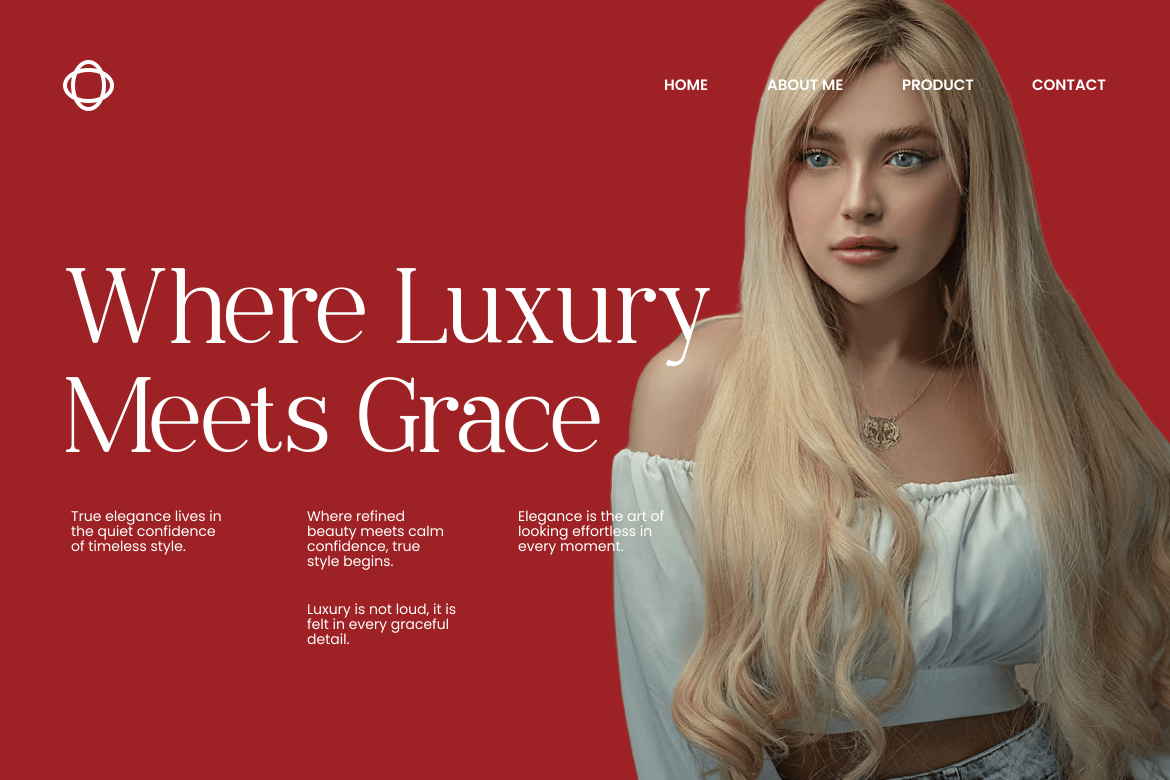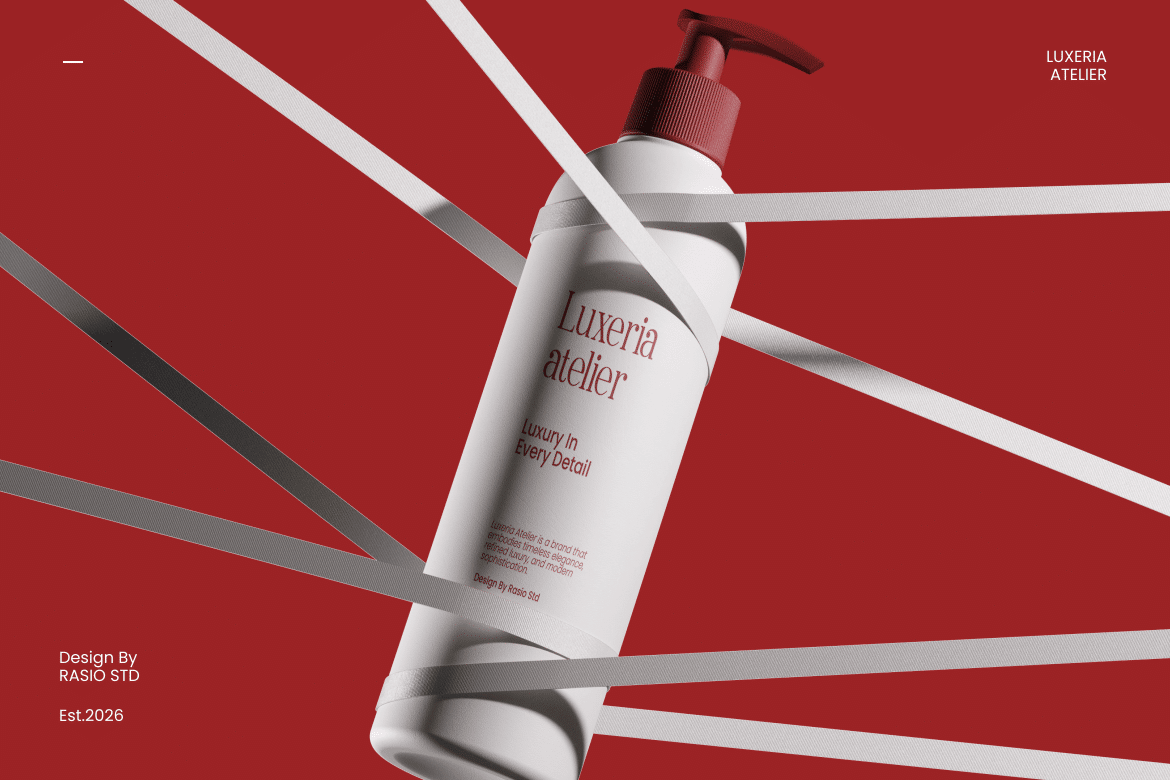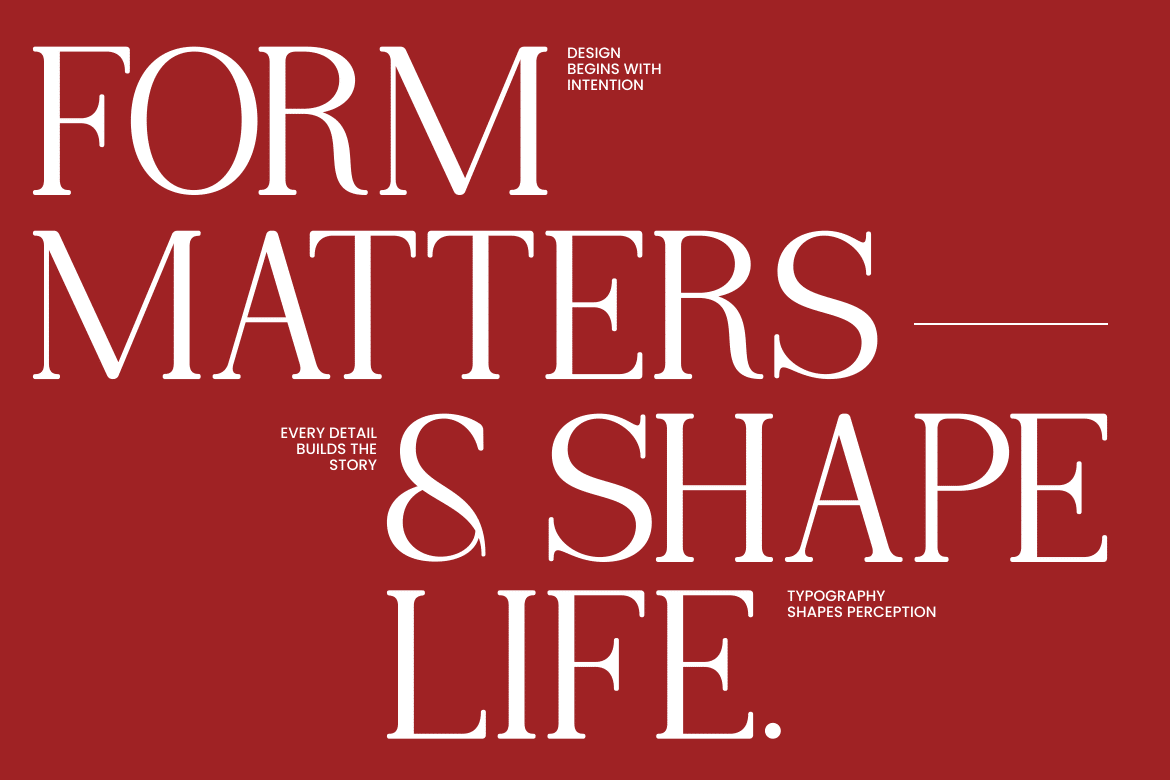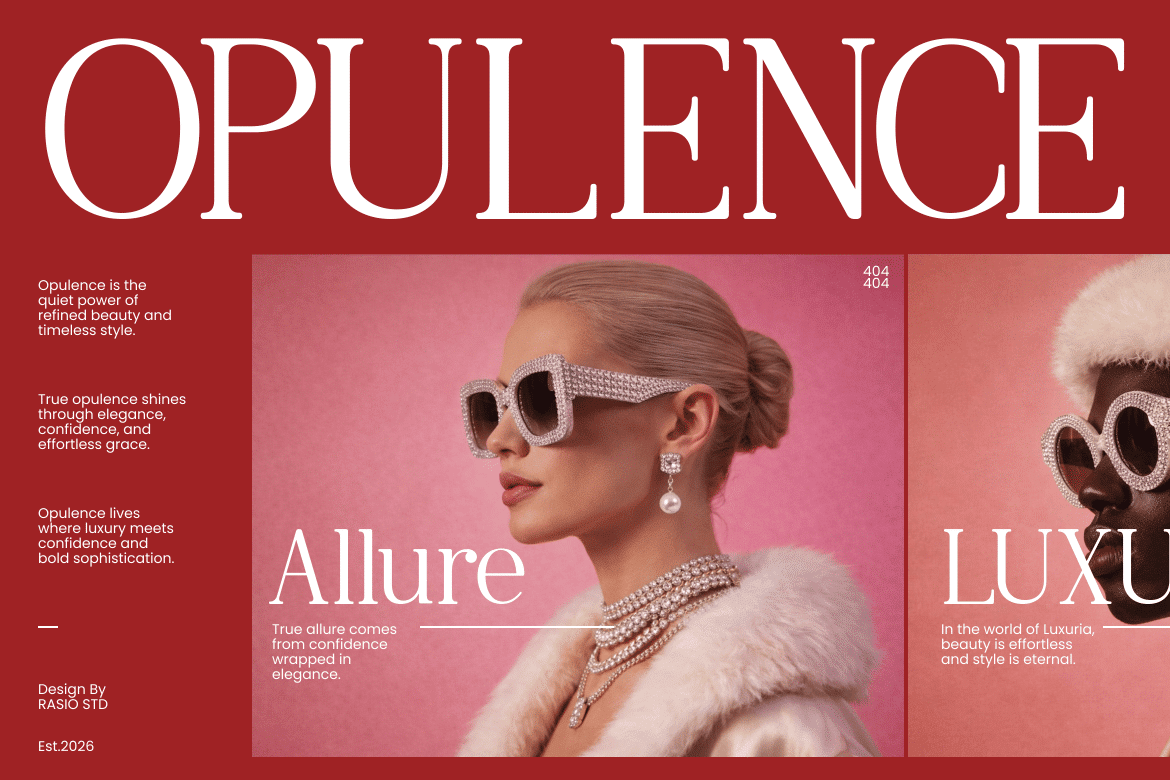
Velique Editorial Serif Font
Velique showcases a modern editorial serif with refined proportions, high-contrast strokes, and elegant letterforms. It features clean serif structures combined with subtle contemporary details, creating a sophisticated and fashion-forward aesthetic. The font includes uppercase, lowercase, numerals, punctuation, and multilingual support, designed for high-end visual communication.
Relevance and Use Cases is perfect for luxury branding, fashion editorials, and premium visual identities that require a refined and sophisticated tone. It works perfectly for magazine layouts, logo design, product packaging, and high-end marketing materials where elegance and clarity are essential.